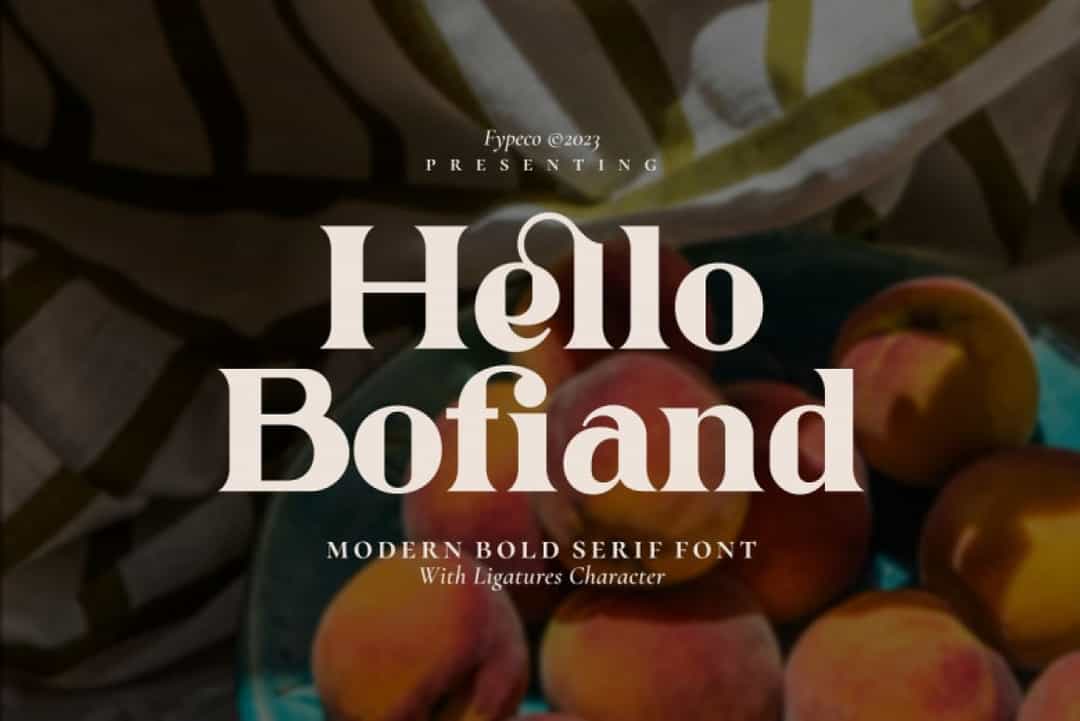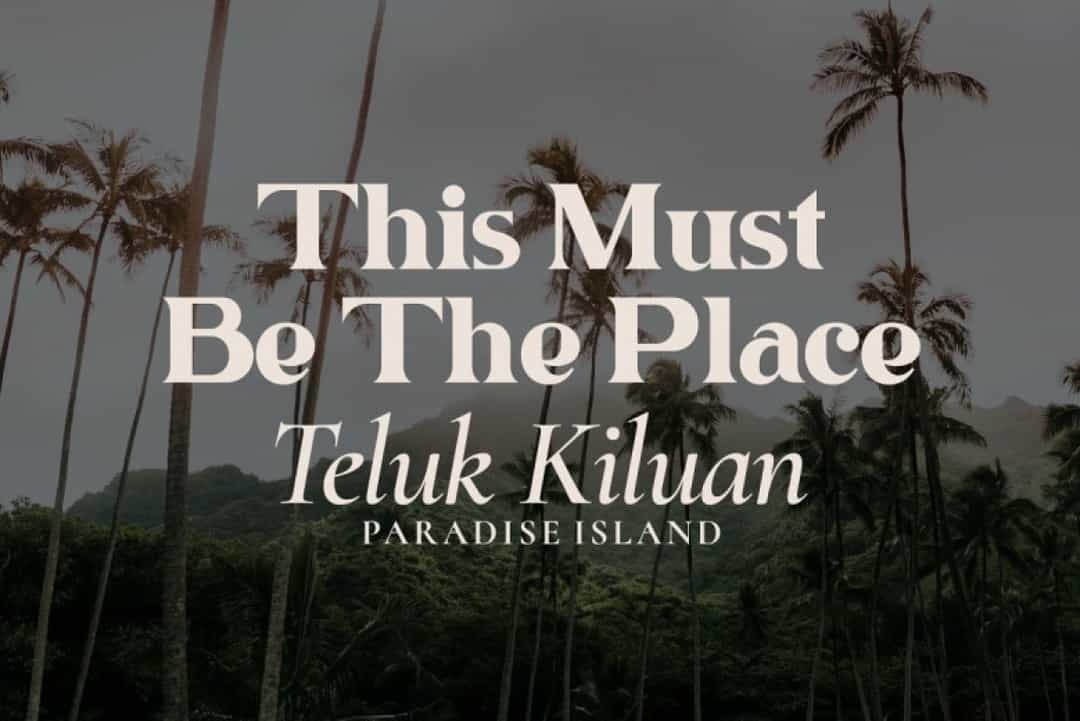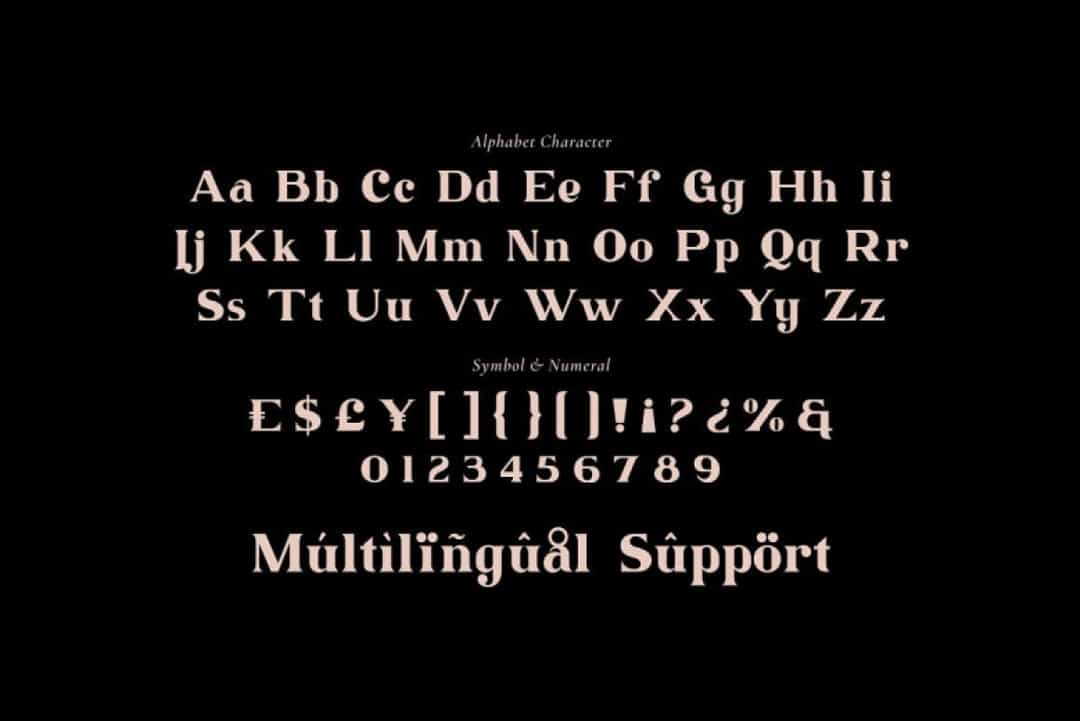
Discover Hello Bofiand Font, part of the Serif collection—a versatile and unique font perfect for adding a personal touch to your projects. Download it for free and enjoy crafting designs with style, from invitations to social media posts. This font is available exclusively for personal use, giving you the freedom to create without limits. Unlock your creativity with Hello Bofiand Font today!
Hello Bofiand is an ultra modern and bold serif font featuring multiple Ligatures that’s great for branding, logos, master signs, headlines, quotes and different designs and products.